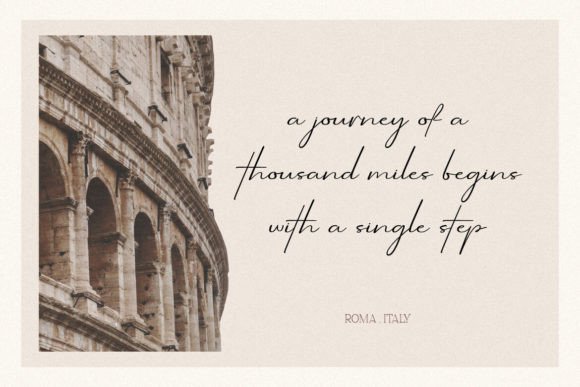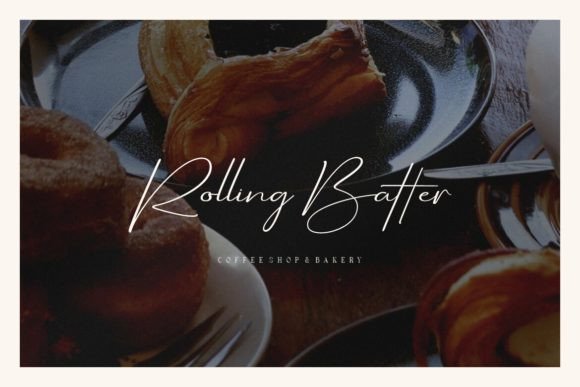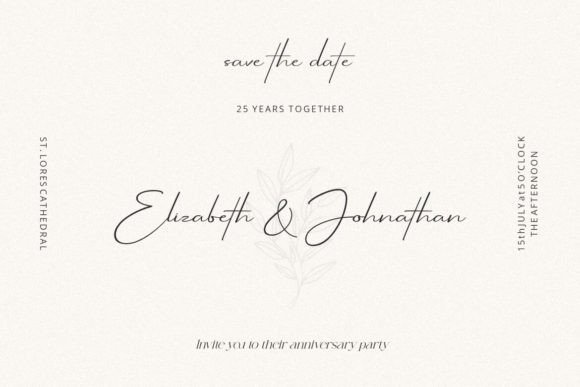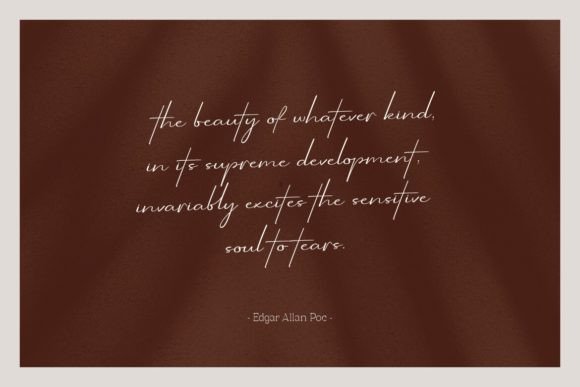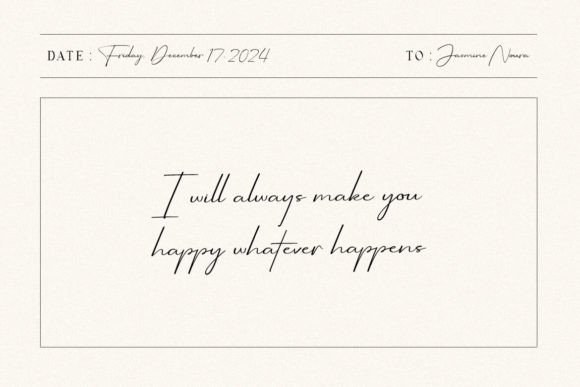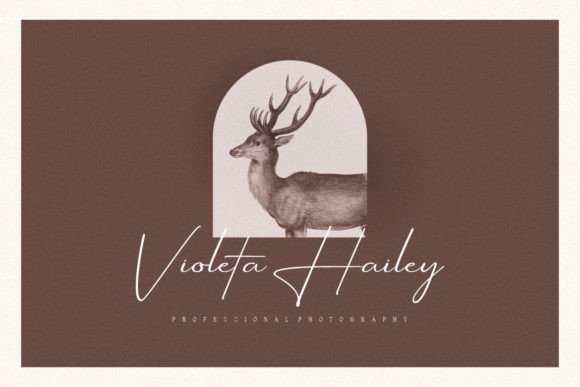
The Quest for the Perfect Font: Discovering Aurantiaca Signature
Ah, the eternal struggle of finding the perfect font for our design projects. I still remember the time I was working on a branding project for a client who wanted a feminine and modern touch. I spent hours scouring through font libraries, but nothing seemed to fit the bill. That was until I stumbled upon Aurantiaca Signature, a beautiful, casually elegant handwriting font that instantly won me over.
A First Impression: What Makes Aurantiaca Signature Special
Aurantiaca Signature is a modern, feminine handwriting font that’s perfect for a wide range of projects, from quotes and menus to flyers, posters, and business cards. What sets it apart is its effortless elegance and casual charm, making it ideal for designers, crafters, and creative hobbyists looking to add a personal touch to their work.
- ✨ Extensive character set: Aurantiaca Signature comes with a full uppercase, lowercase, numbers, punctuation, ligature character, and extensive language support, making it incredibly versatile.
- ✅ Elegant and legible: The font’s modern, cursive script is both beautiful and easy to read, even at smaller sizes.
- 💕 Feminine and playful: Aurantiaca Signature has a distinctly feminine charm that’s perfect for projects that require a touch of whimsy and elegance.
- 🤔 Limited suitability for formal projects: While Aurantiaca Signature is stunning for casual and creative projects, it may not be the best fit for more formal or corporate designs.
The Story Behind Aurantiaca Signature: Designer Inspiration
While the true story behind Aurantiaca Signature remains a mystery, it’s easy to imagine that the designer was inspired by the beauty of handwritten script and the elegance of modern typography. Perhaps they wanted to create a font that would allow designers to add a personal touch to their projects, while still maintaining a level of sophistication and elegance.
Q: What type of projects is Aurantiaca Signature best suited for?
A: Aurantiaca Signature is perfect for a wide range of projects, including quotes, menus, taglines, flyers, posters, invitations, greeting cards, and business cards.
Q: Is Aurantiaca Signature easy to read?
A: Yes, Aurantiaca Signature is designed to be both beautiful and legible, making it easy to read even at smaller sizes.